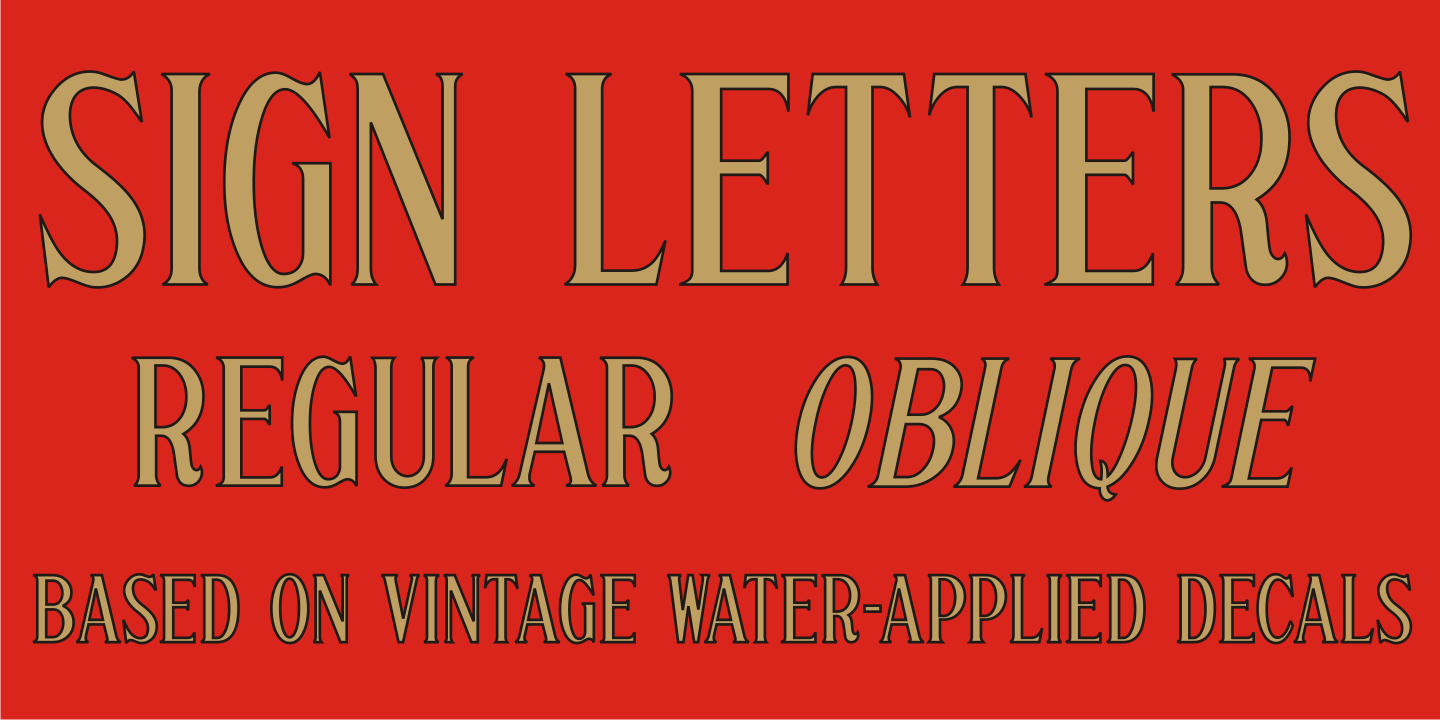
The Sign Letters JNL Font excels in various design applications including vintage signage restoration branding, retro sign shop marketing, classic lettering service communications, traditional sign making materials, vintage storefront identities, retro advertising reproductions, classic sign painter promotions, vintage display lettering, traditional sign craft documentation, and distinguished signage projects that demand sign lettering authenticity and vintage sophistication.
What makes the Sign Letters JNL Font exciting is its authentic embodiment of traditional sign lettering and vintage signage craftsmanship through letterforms that capture the essence of hand-painted signs and the skilled artistry of professional sign painters. This typeface demonstrates exceptional craftsmanship through carefully crafted characters that suggest the precise brushwork of skilled sign letterers, the traditional techniques of vintage sign making, and the enduring quality that makes classic sign lettering so visually commanding and commercially effective. The font's sign lettering personality makes it perfect for sign shops and restoration specialists seeking to communicate signage authenticity, traditional craftsmanship, and the kind of vintage expertise that creates memorable sign lettering experiences through typography that literally paints with sign maker precision.
The Sign Letters JNL Font family typically includes traditional weight variations that enhance the sign lettering aesthetic, featuring vintage styling options and extended character sets optimized for signage communications and restoration applications. These family options often include sign-inspired alternates, traditional symbols, and vintage decorative elements that provide designers with comprehensive tools for creating authentically vintage typography that celebrates sign lettering heritage while maintaining contemporary design appeal and signage credibility.
Signage professionals and restoration specialists consistently select Sign Letters JNL Font Free Download for projects requiring typography that communicates sign lettering authenticity and vintage sophistication. This typeface delivers exceptional performance in signage marketing, restoration branding, and traditional communications where establishing craftsmanship and creating vintage atmosphere is essential for signage appreciation. The font's lettering character makes it particularly effective for storefront and advertising applications. Download Sign Letters JNL Font Free Download today to access this traditionally crafted typeface that transforms signage communications with its vintage elegance and sign lettering sophistication, creating compelling signage experiences that honor the magnificent artistry of traditional sign painting while celebrating the skilled craftsmanship that defines authentic vintage signage and classic lettering excellence.